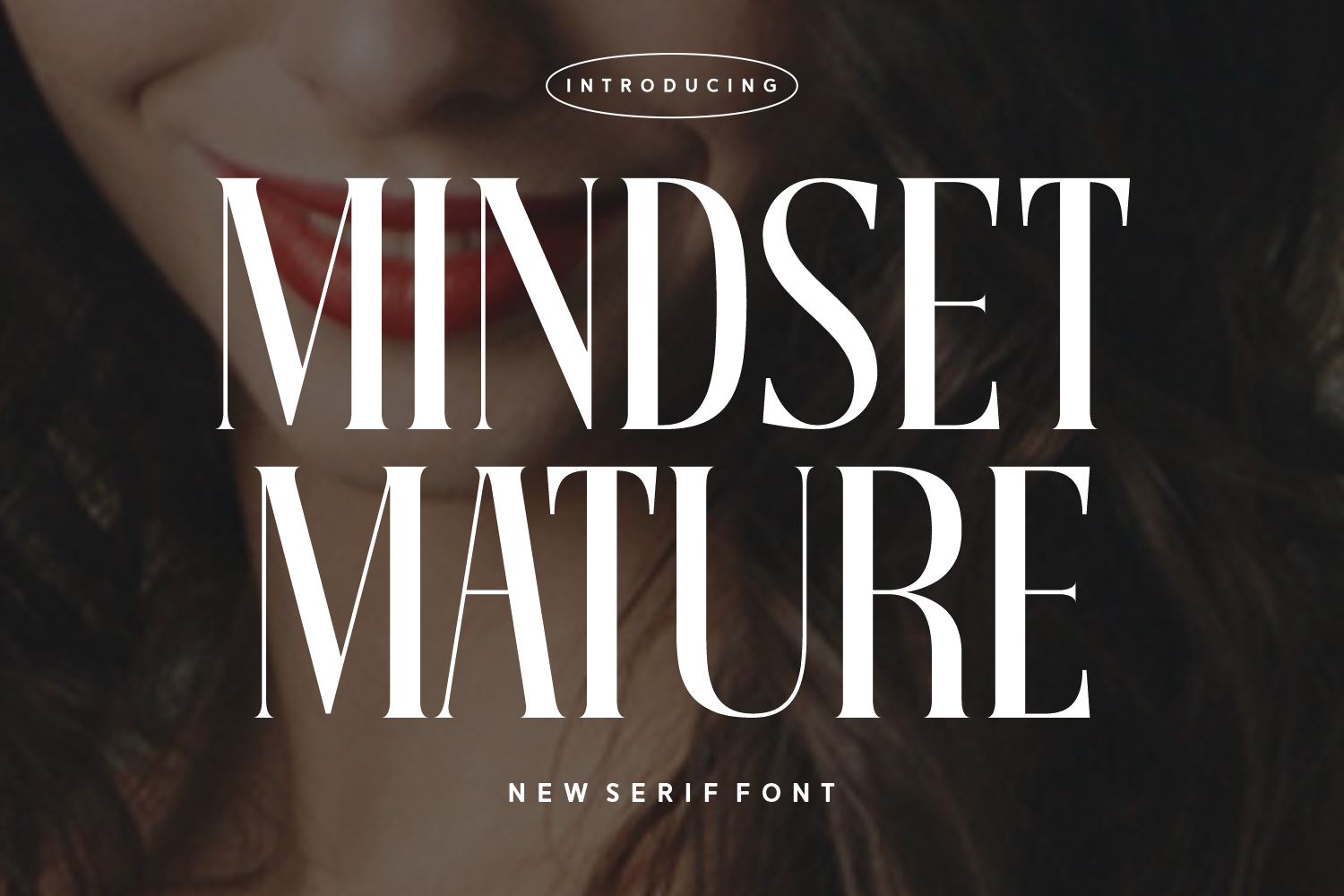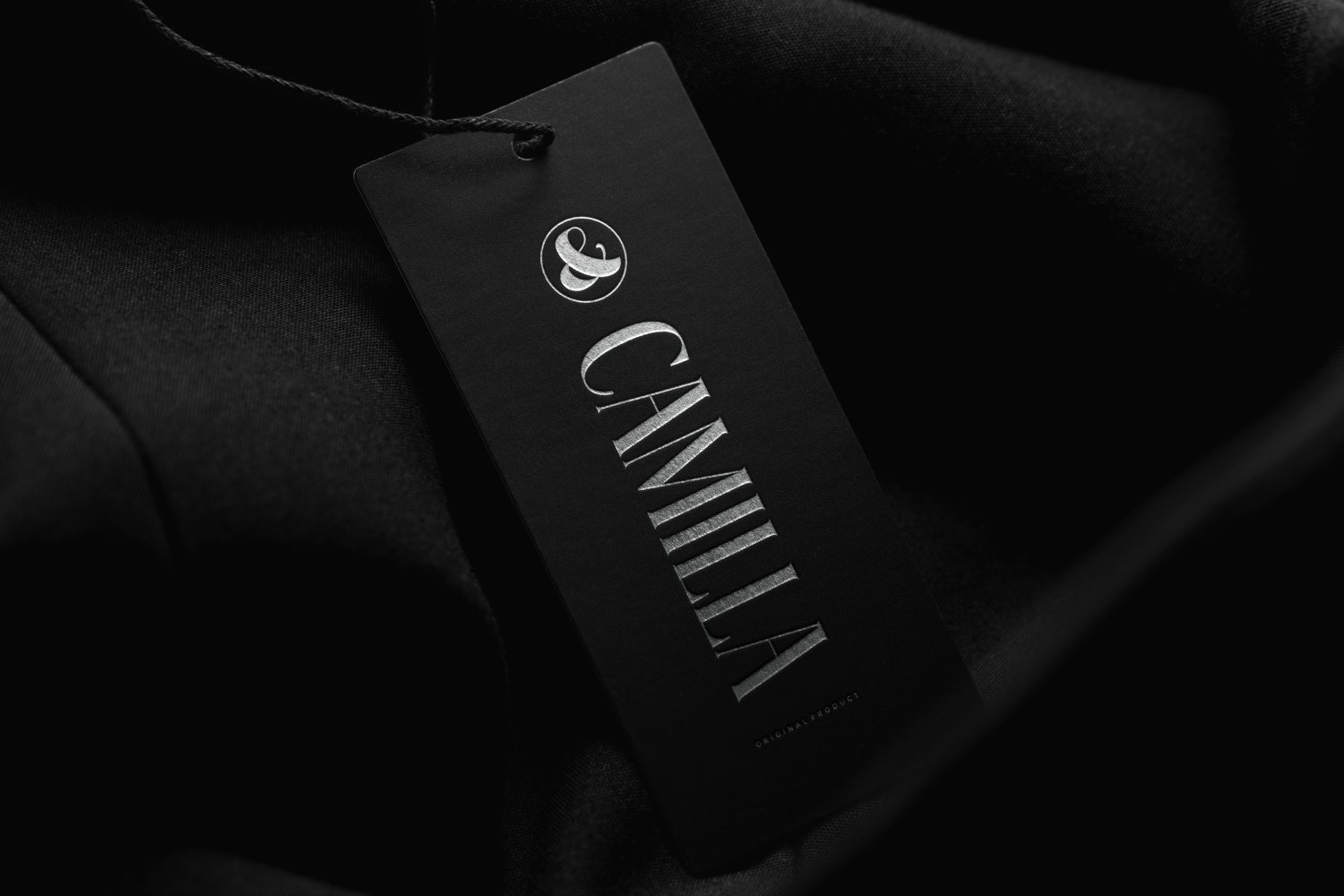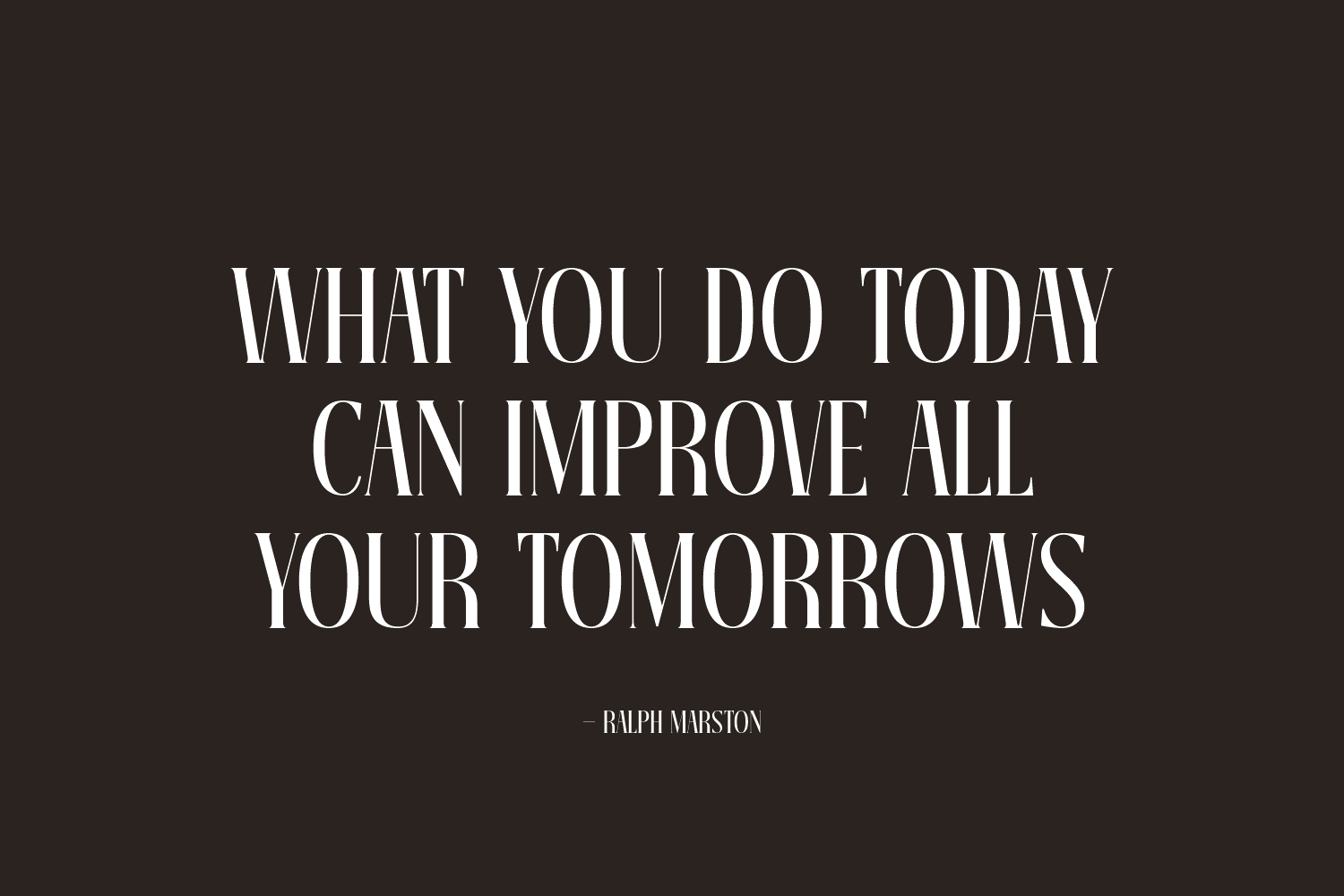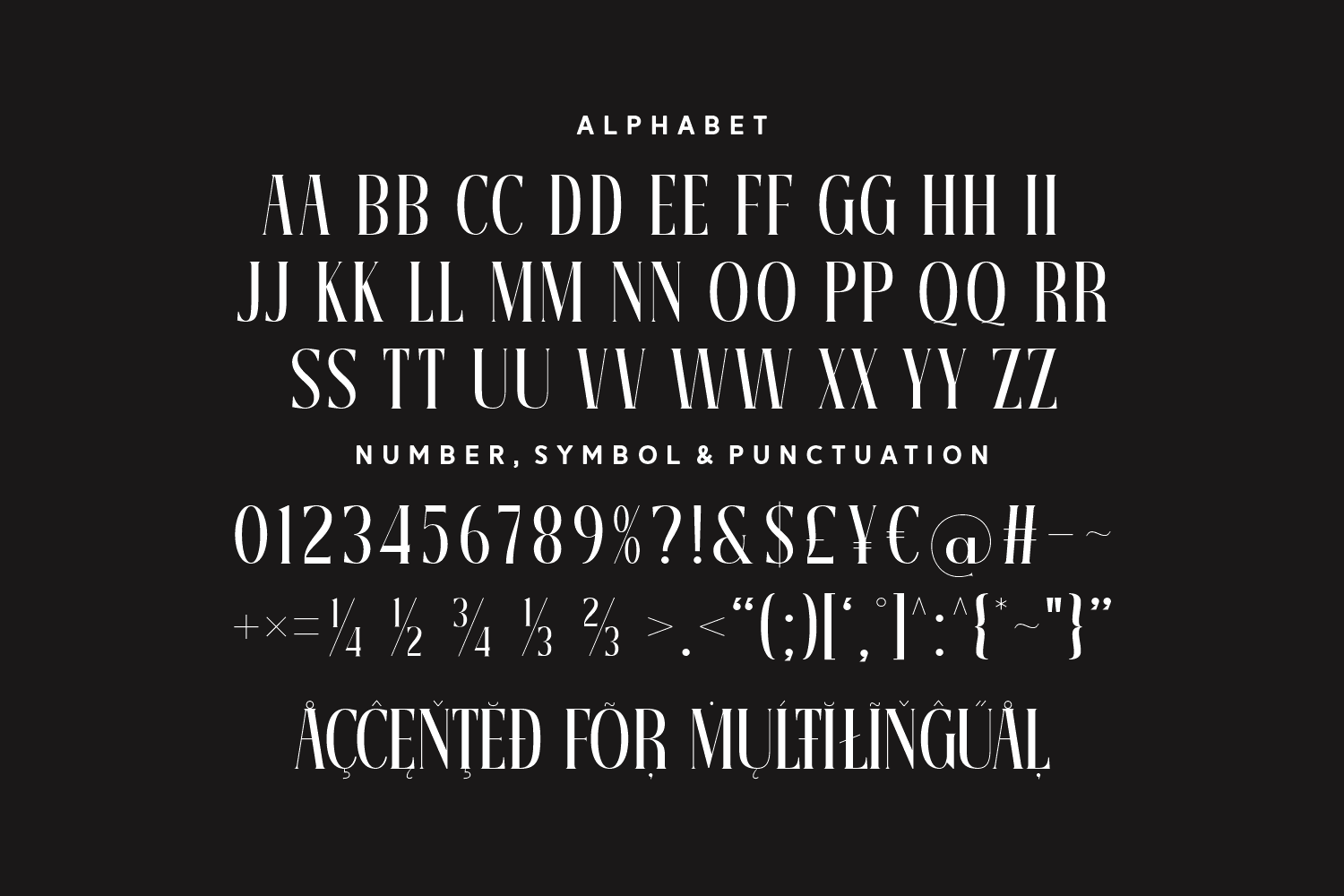
Mindset Mature is a striking serif font with refined verticality and sleek sophistication. Its slim letterforms and sharp serifs lend a professional, high-end feel—perfect for modern businesses, fashion editorials, and luxury branding. With just the right balance of elegance and authority, it commands attention in a subtle, sophisticated way.
Whether you're designing a magazine cover, premium logo, or a bold quote layout, Mindset Mature elevates the mood with timeless character and poise.